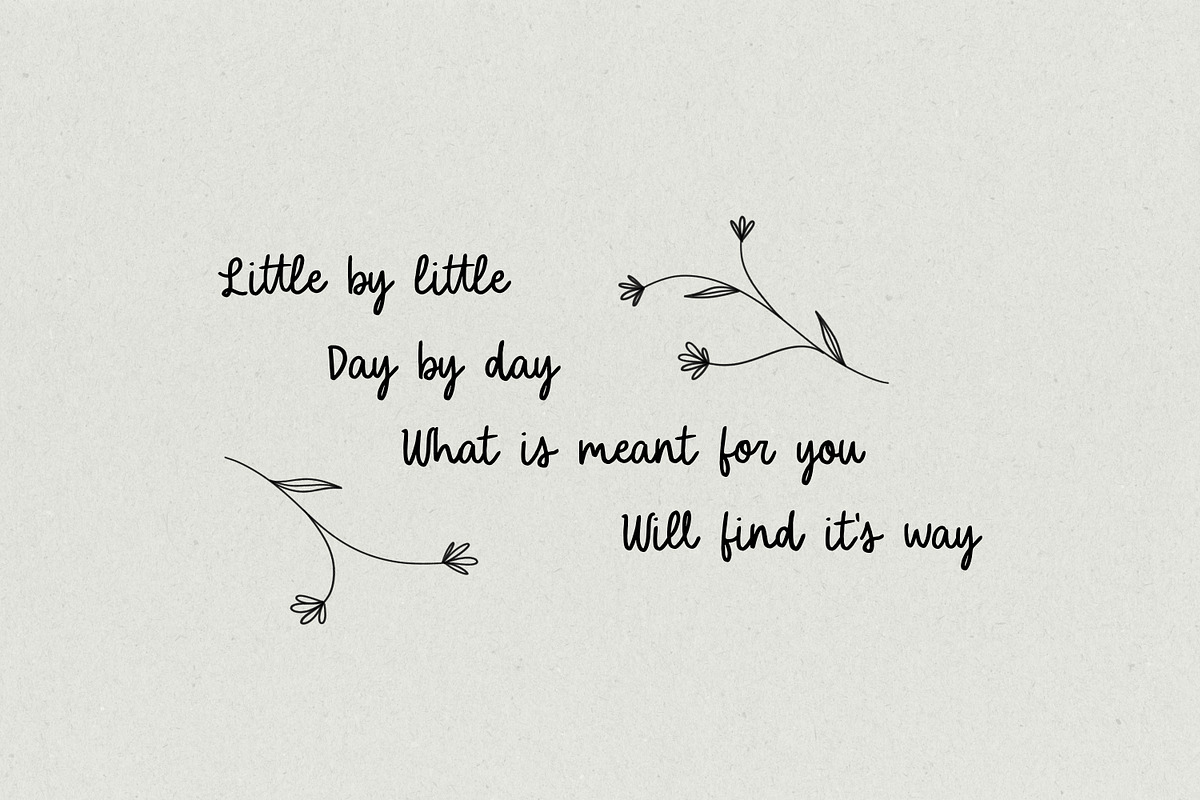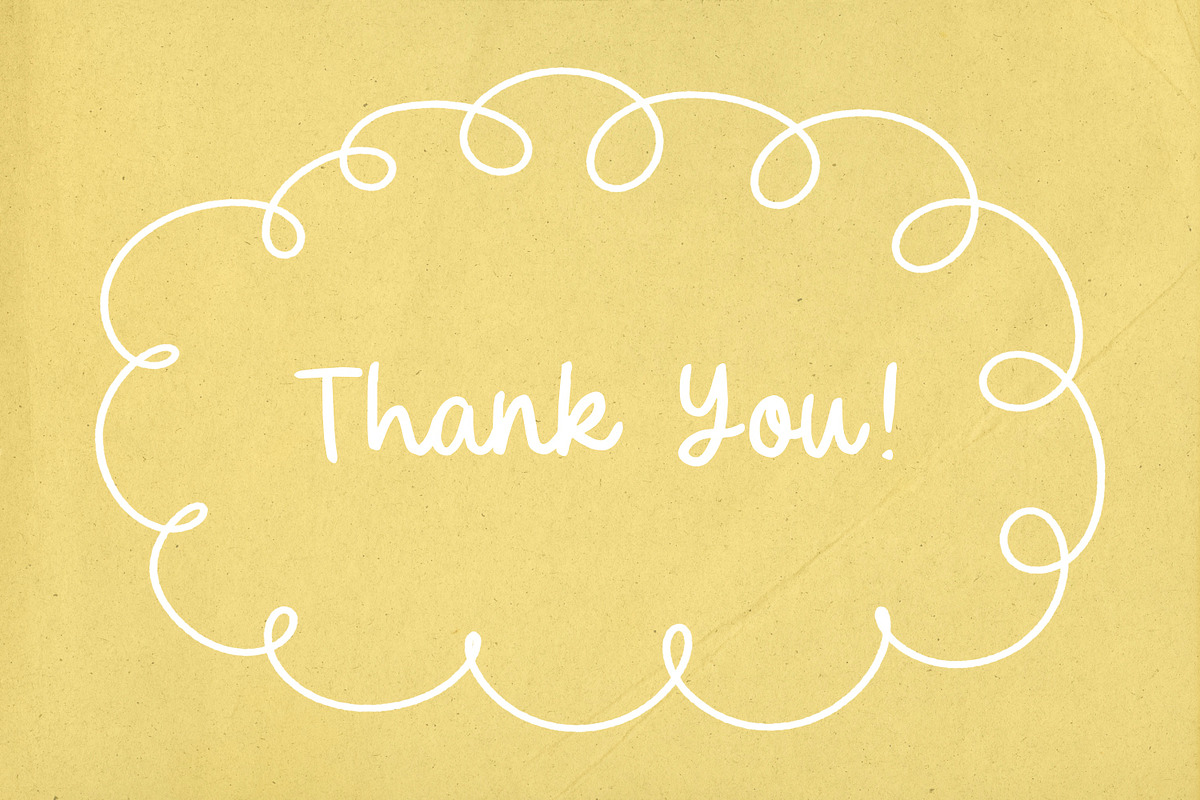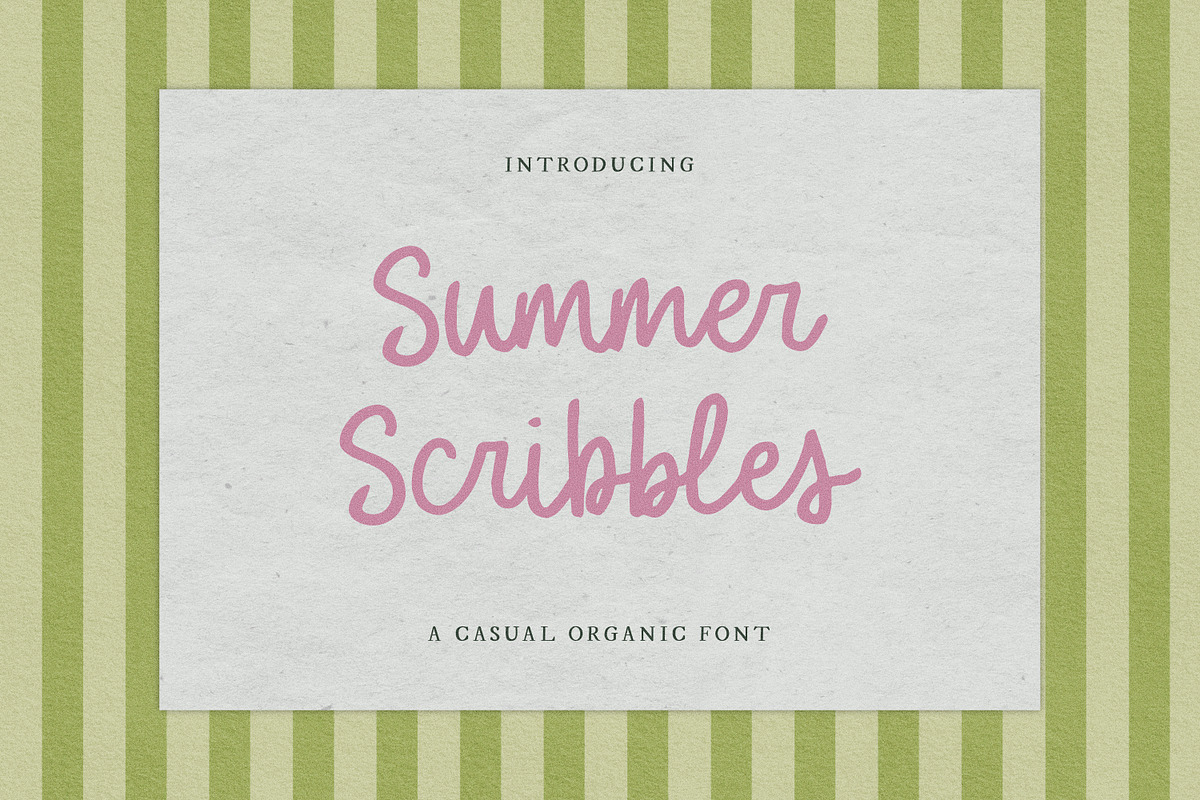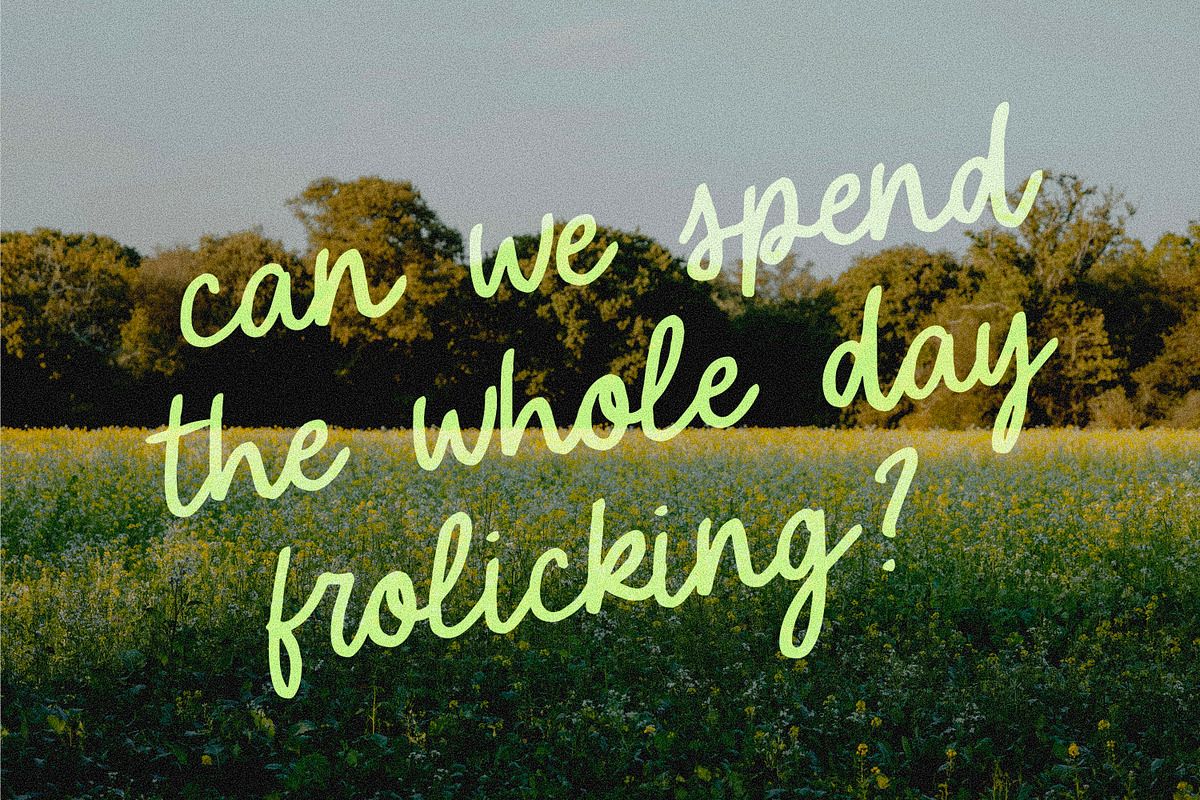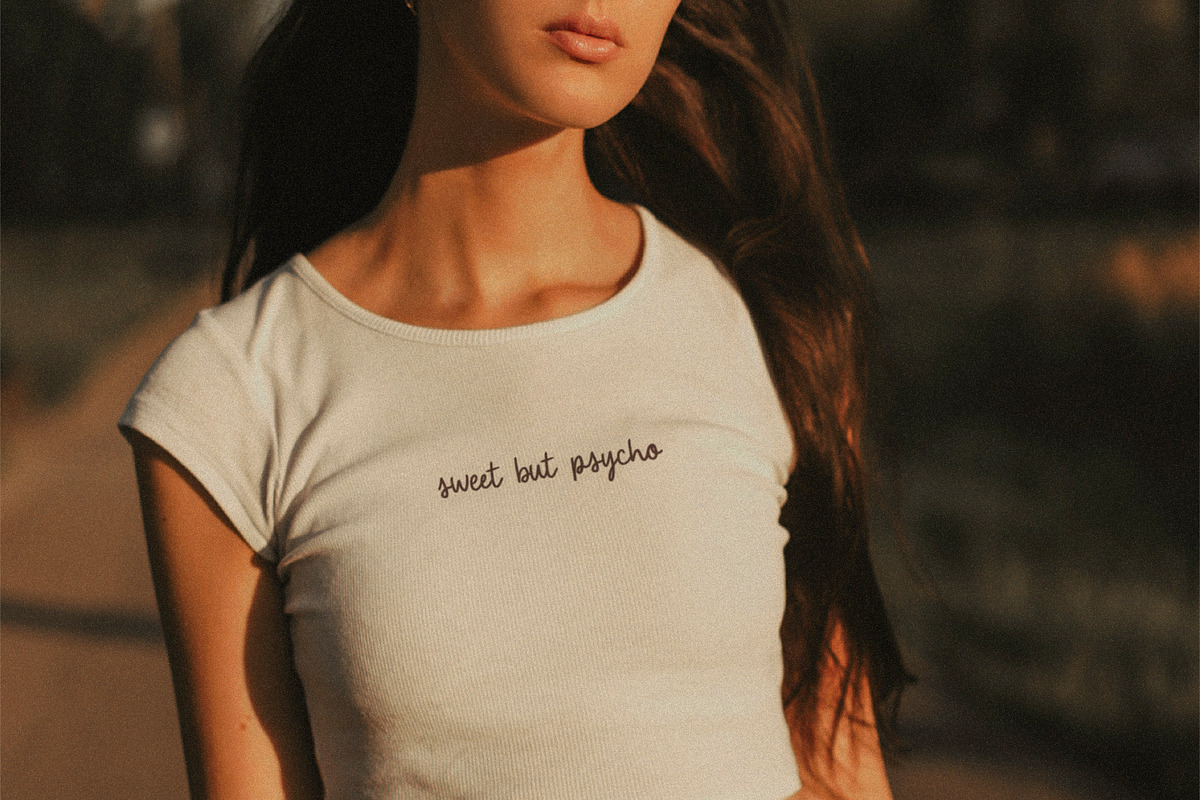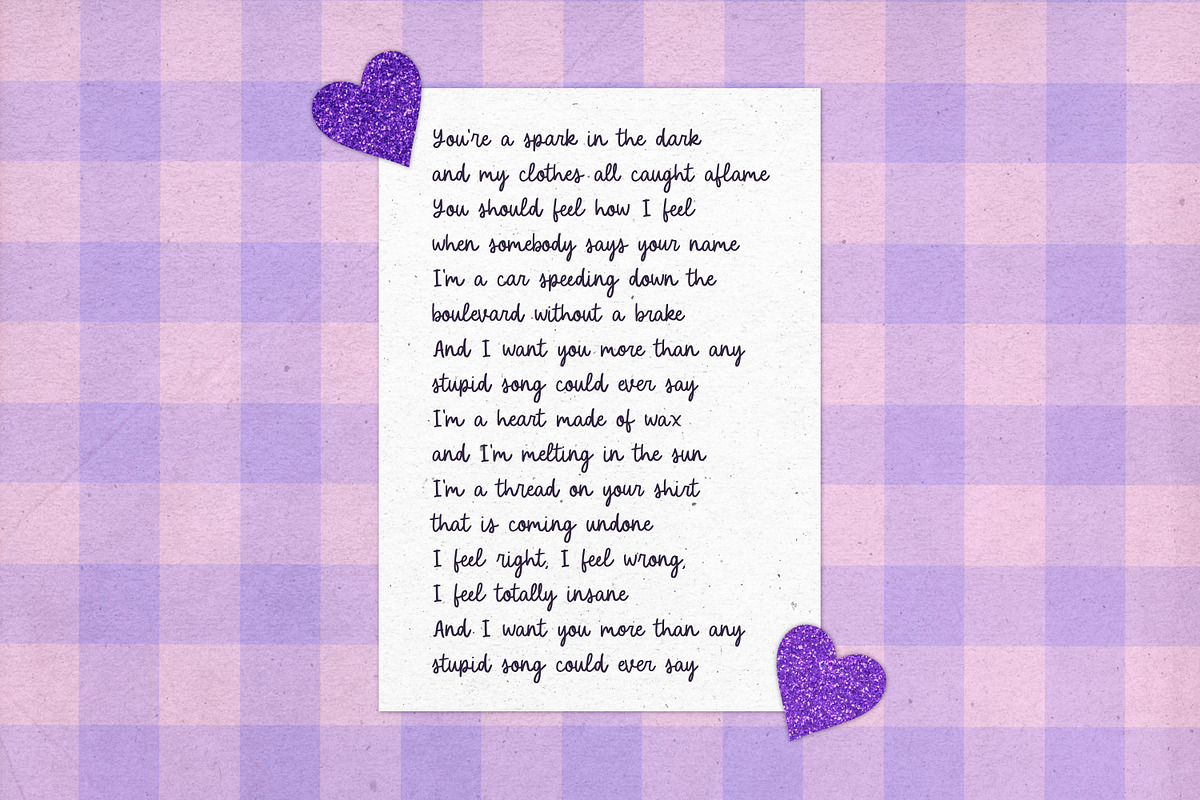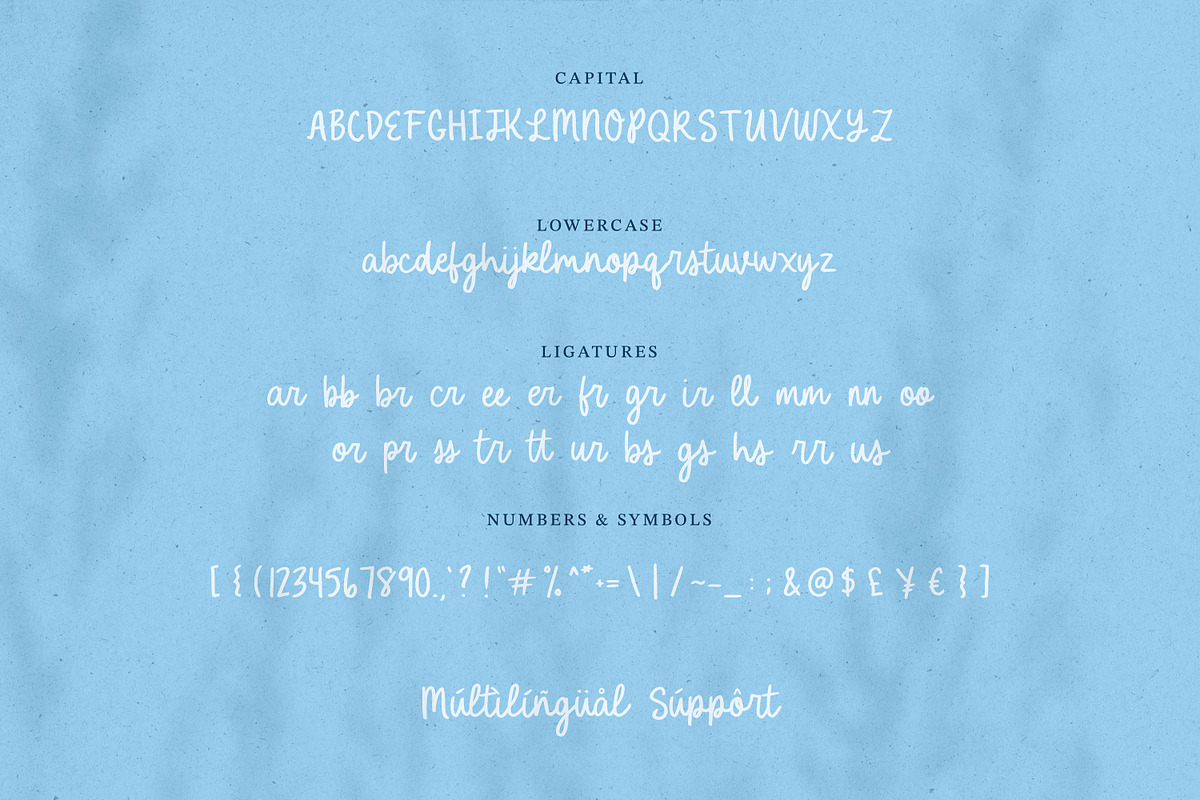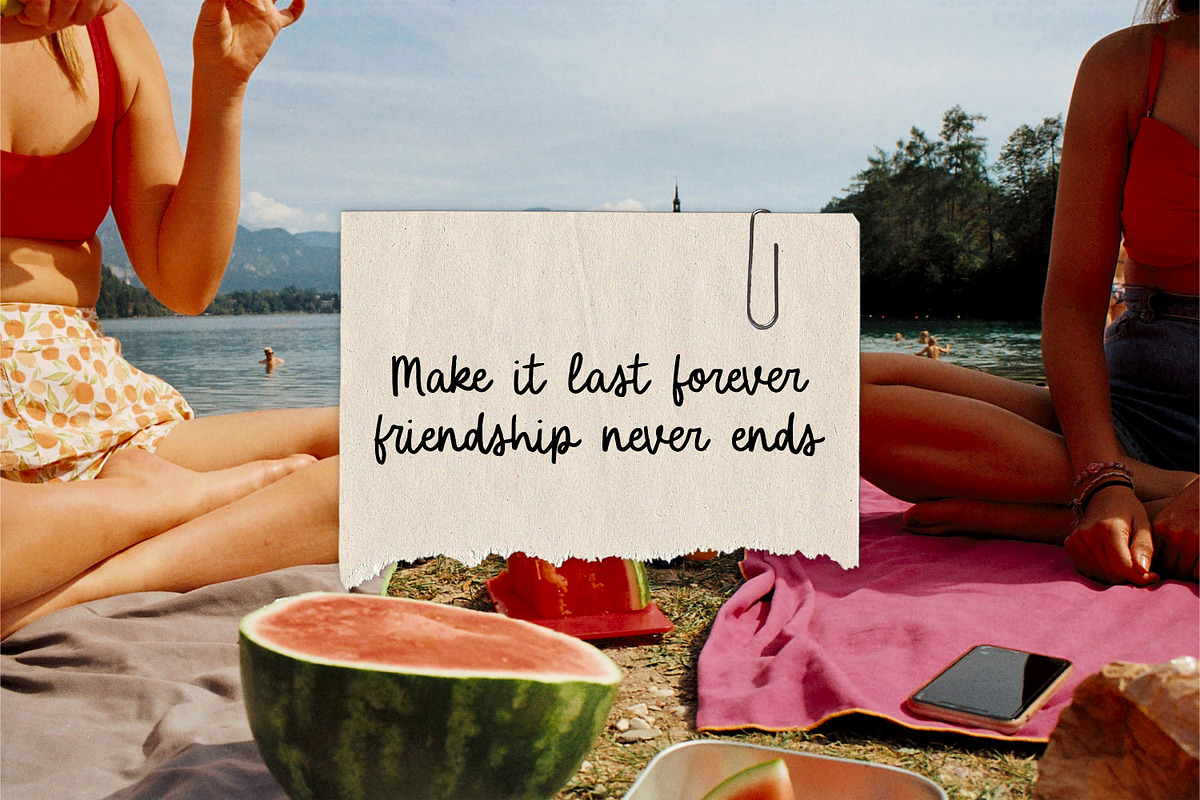
Summer Scribbles Organic Font
Introducing a natural, handwritten font: Summer Scribbles! This organic writing has a little rough texture that will add a personal, slightly whimsical touch to any design! It is perfect for any and all logos, branding, invitations, stickers, t-shirts, posters, and much more!